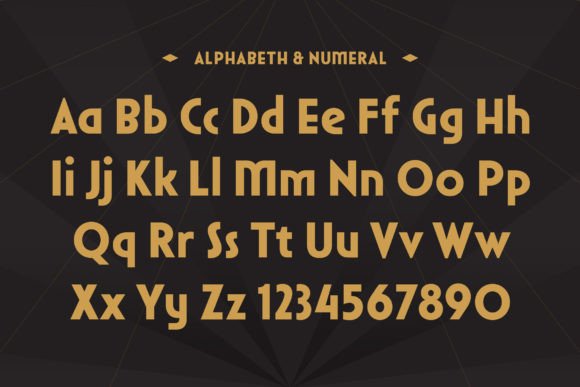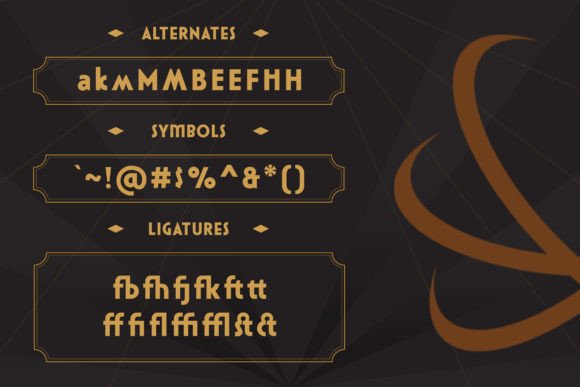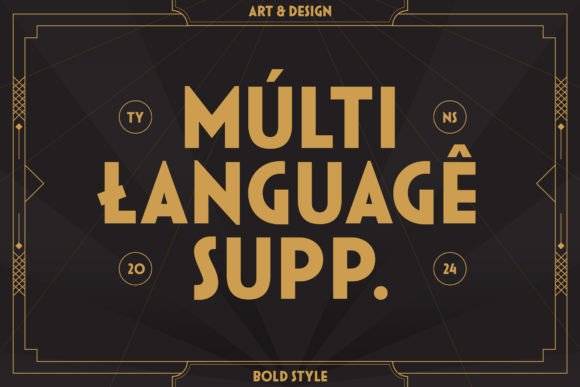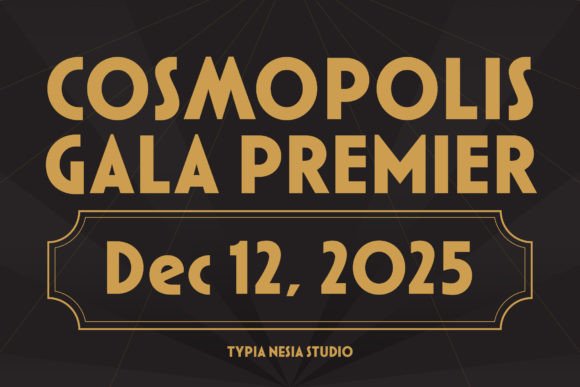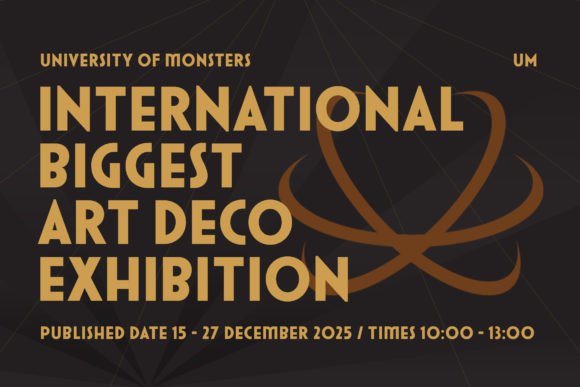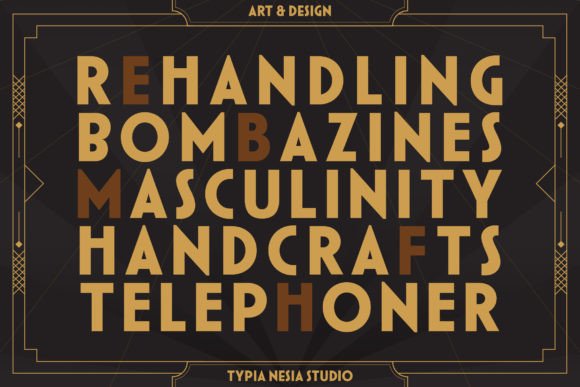
Introduction to Silvadeco Font
Silvadeco – Modern Art Deco Font – Bold Contemporary Vintage Display Font.
Silvadeco is a Modern Art Deco Font that combines contemporary aesthetics with the timeless elegance of the Art Deco era Its bold geometric shapes, evoking a sense of luxury and modernity, make it perfect for projects that require a stylish and bold look.
Key Features of Silvadeco Font
Why Choose Silvadeco Font?
Silvadeco Font offers exceptional quality and versatility, making it a valuable addition to your design toolkit. Whether you’re creating for personal projects or commercial use, Silvadeco Font delivers professional results.